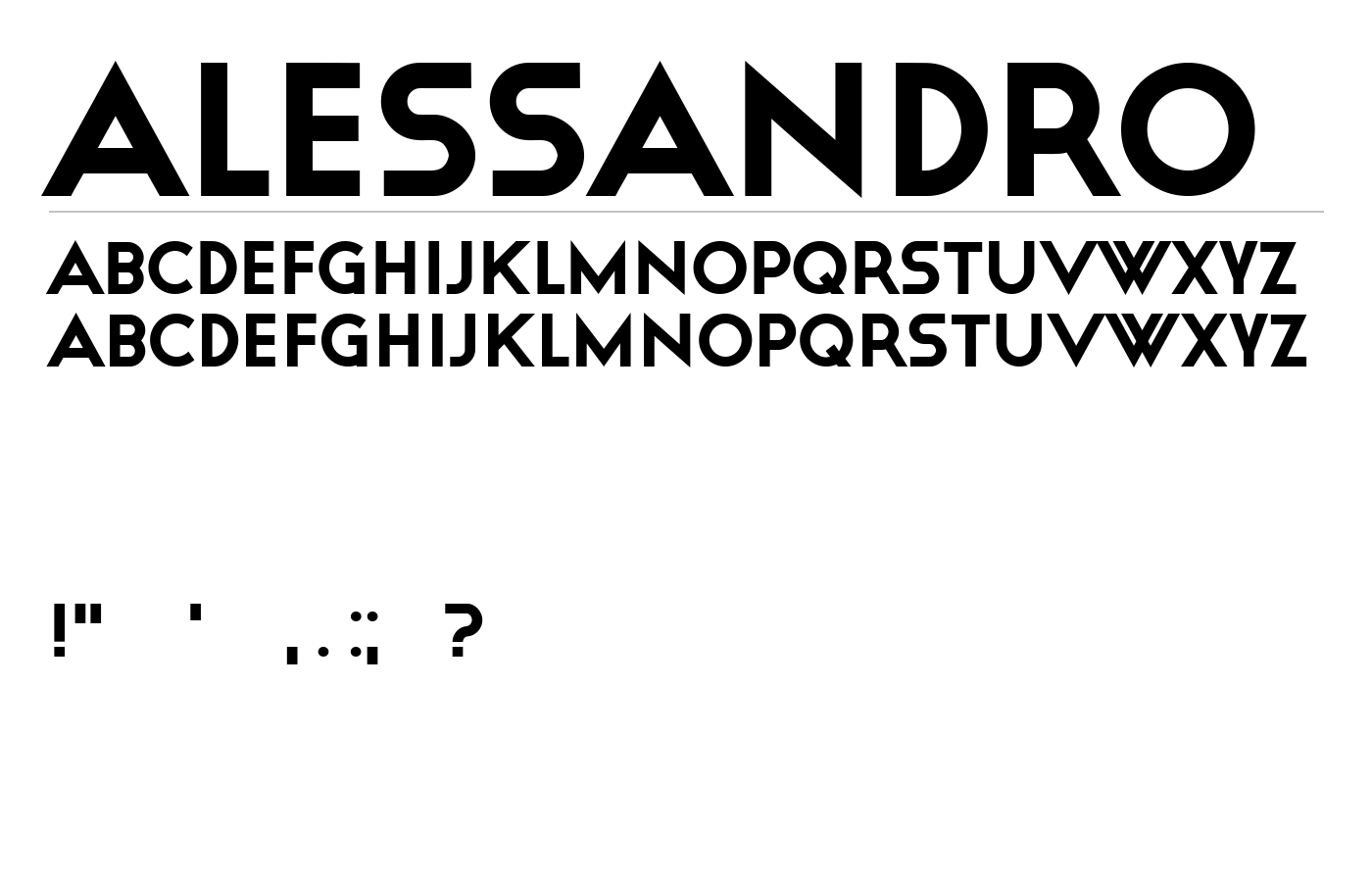
Alessandro is a bold, geometric sans serif font characterized by clean, sharp lines and a modern Art Deco vibe. Its strong, angular letterforms with distinctive details like the double-V in 'W' and the pointed 'A' give it a stylish, sophisticated feel perfect for headlines, branding, and editorial design that needs a striking, elegant look. This font works especially well where you want to convey modernity with a touch of vintage glamour.
Alessandro Font
About Alessandro Font